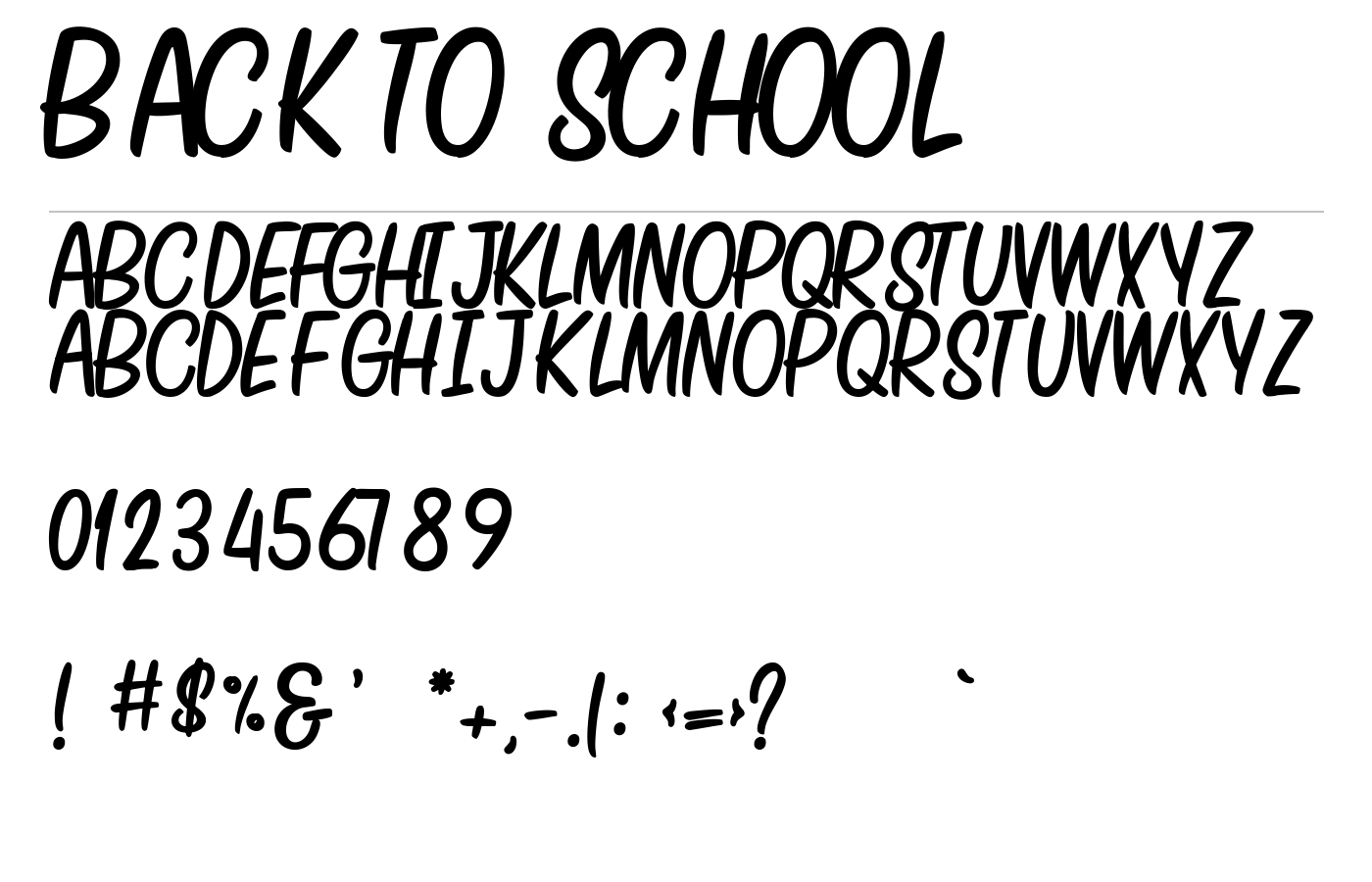
BACK TO SCHOOL is a playful, casual handwritten sans serif font with a medium weight and a slightly condensed width, giving it an energetic and lively feel. Its smooth, rounded strokes and informal letterforms make it perfect for projects that seek a friendly, approachable vibe, such as educational materials, children’s books, and fun branding. This font works well for headlines and signage where a warm, personal touch is desired.
BACK TO SCHOOL Font
About BACK TO SCHOOL Font